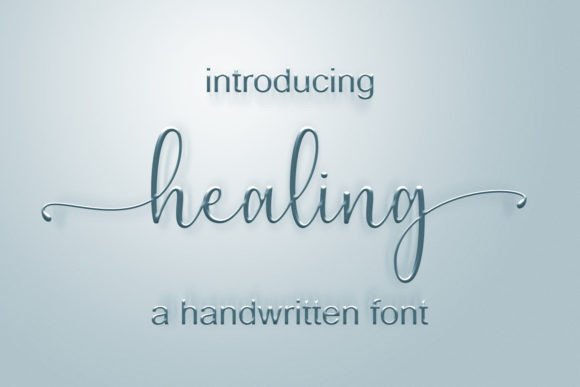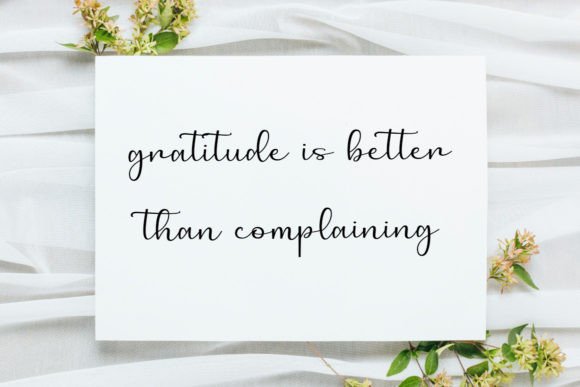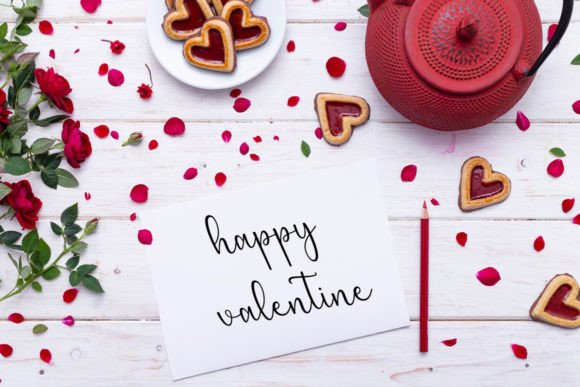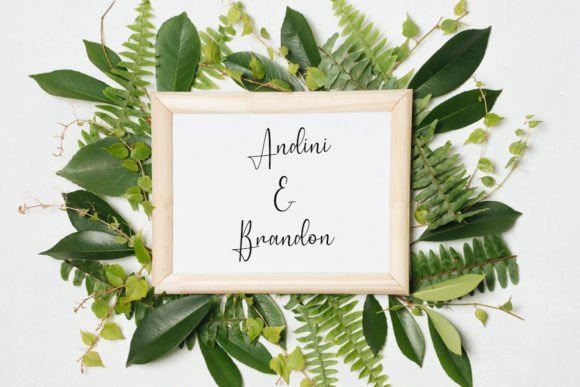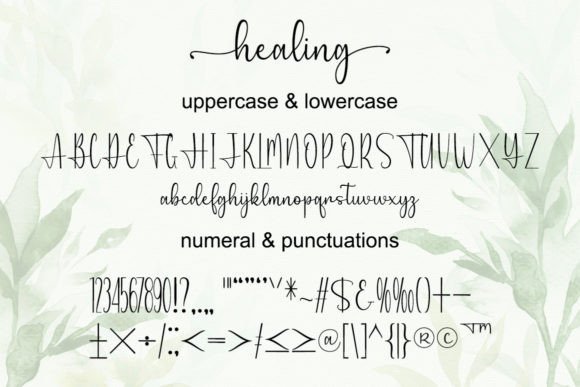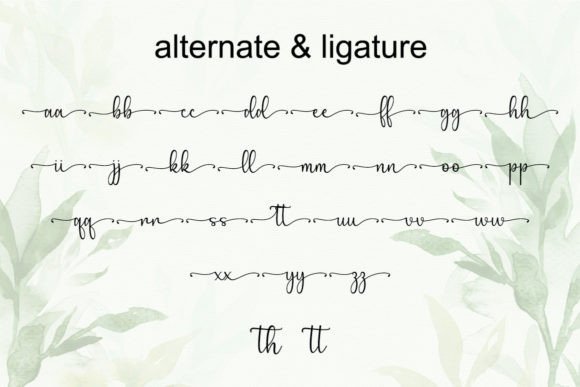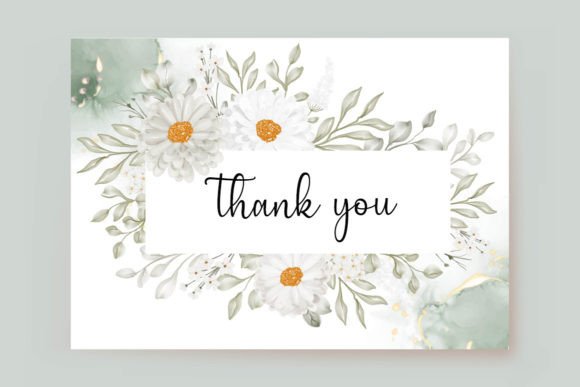
Healing Font
Healing Font: Enchanting Handwriting for Charming Designs
“Healing” is a captivating handwritten font that adds charm and allure to your design projects. It’s perfect for various applications, from logos to websites, adding a touch of warmth to your work.
Key Features of Healing Font
• Enchanting Style: Healing brings a warm and inviting feel to designs.
• Versatile Use: Suitable for many projects, including branding and quotes.
• Authentic Look: Creates a sense of creativity in typography.
Healing’s charming style is ideal for creating memorable logo designs and branding materials that convey warmth.
Clothing and Merchandise
Use Healing to design eye-catching graphics for clothing and merchandise that express individuality.
Digital and Print Media
The font’s enchanting look makes it perfect for creating engaging website headers and print materials.
Healing offers more than just beautiful letters. Here’s why it stands out:
• Enhances overall aesthetics with its captivating style
• Conveys a sense of creativity and individuality effectively
• Adds a touch of uniqueness and charm to designs
By using Healing, you open up new design possibilities. Its enchanting style works well in many contexts, from greeting cards to poster designs. The font’s ability to convey warmth can inspire creative ideas and help you approach projects from a fresh, inviting perspective.